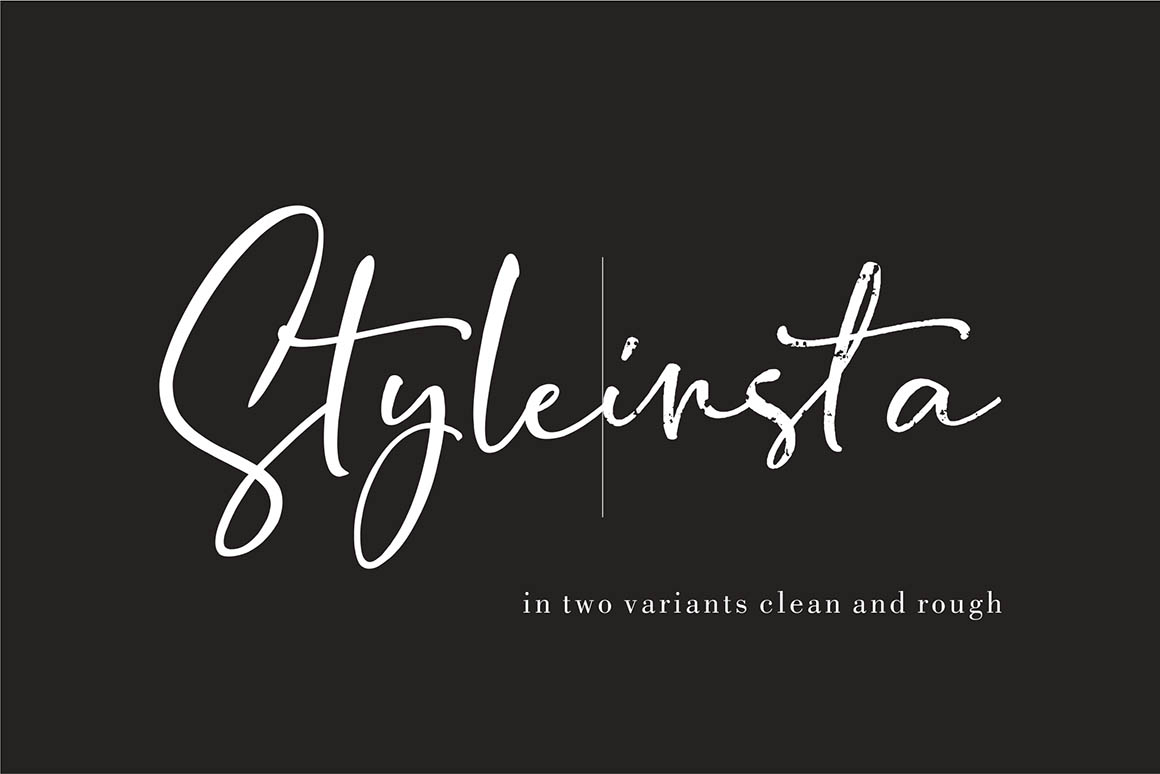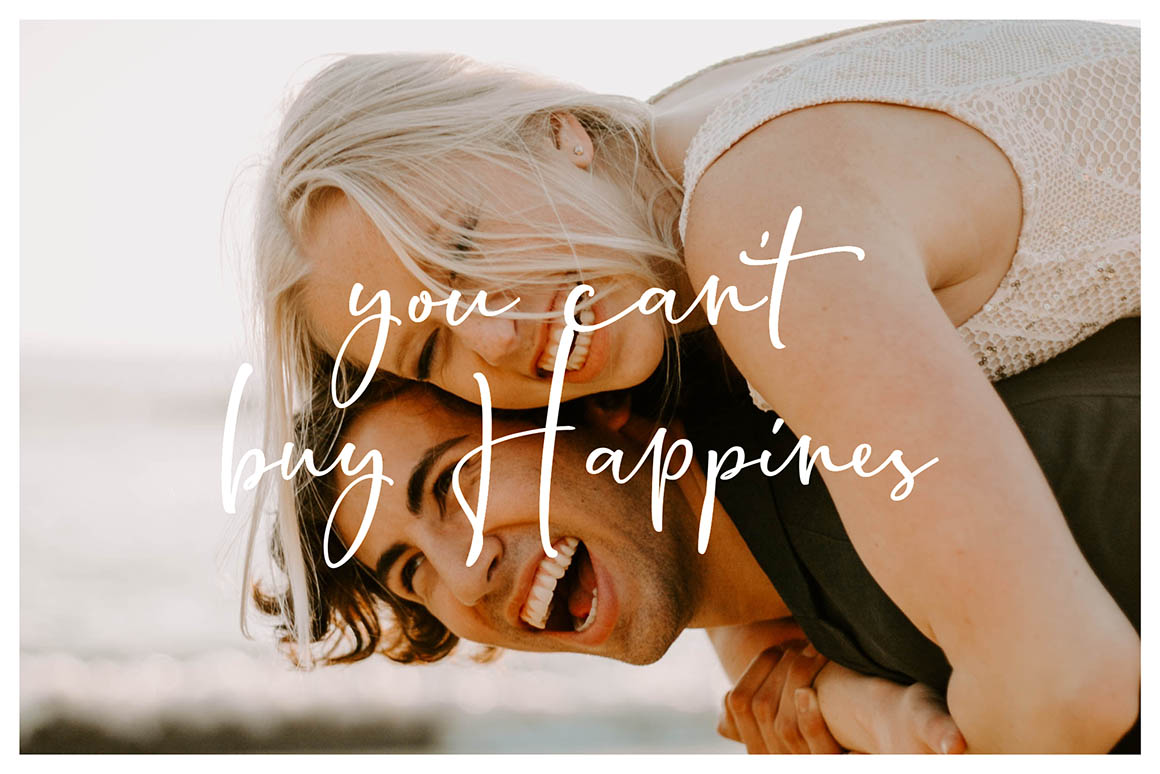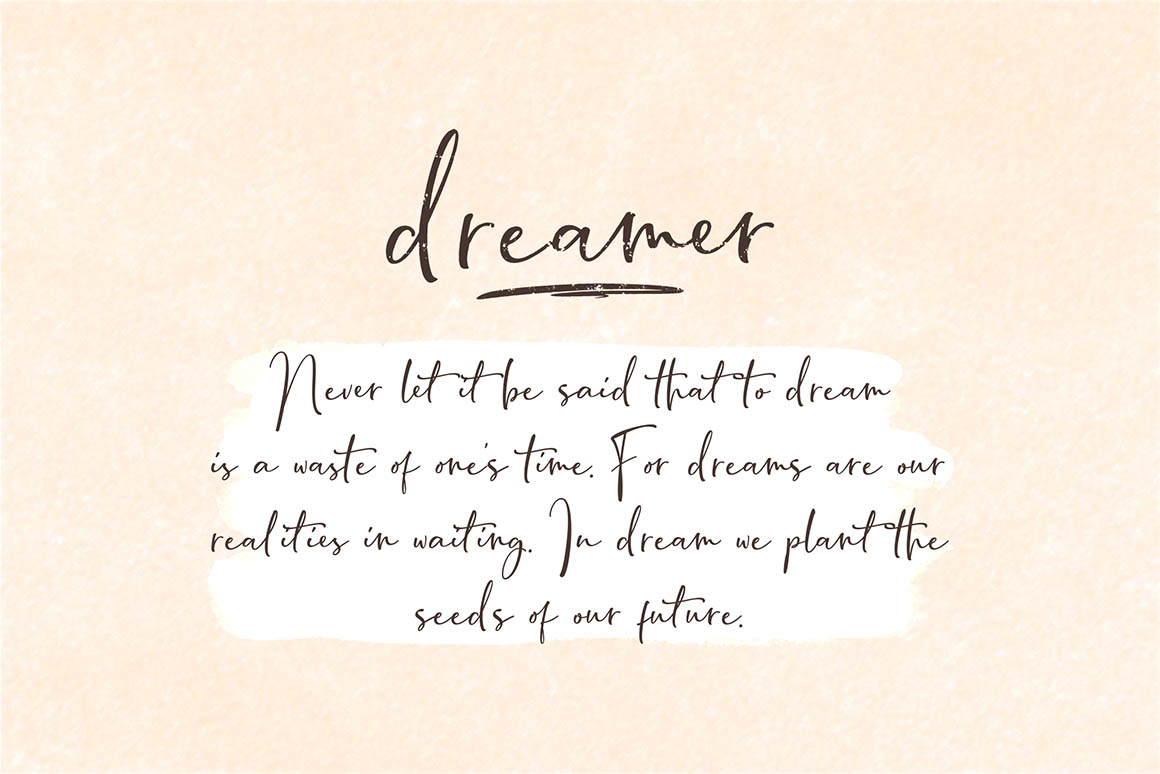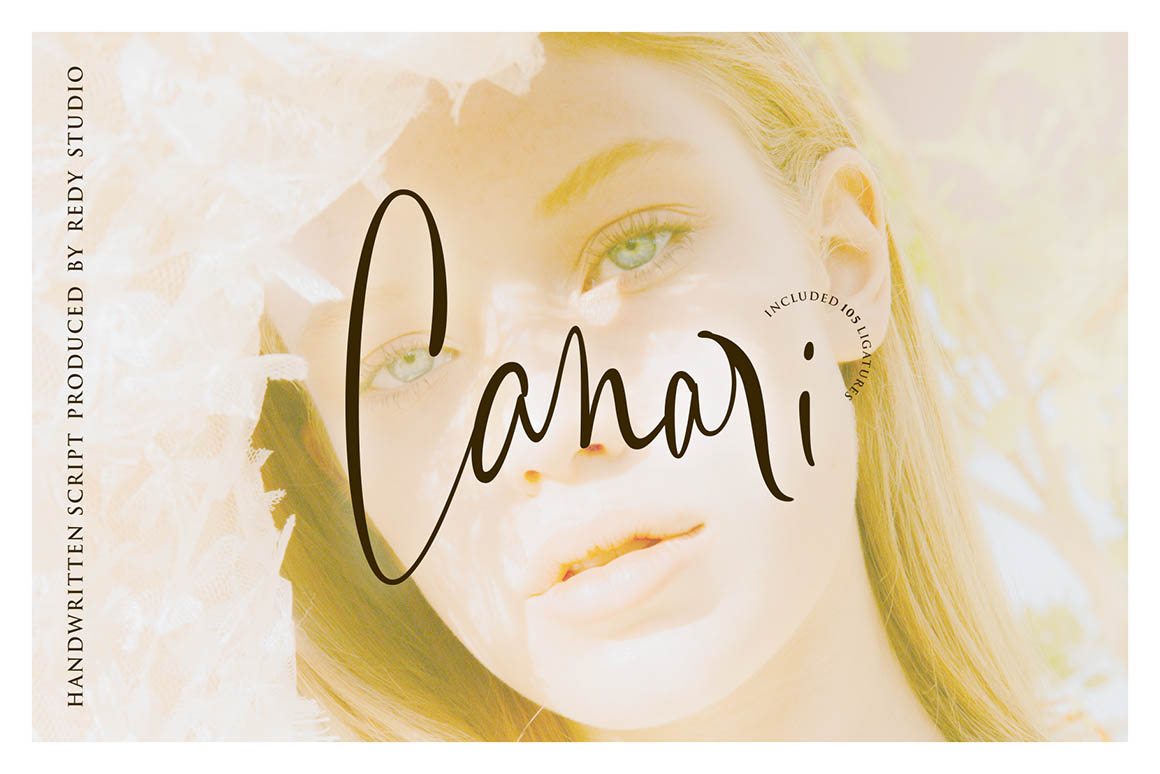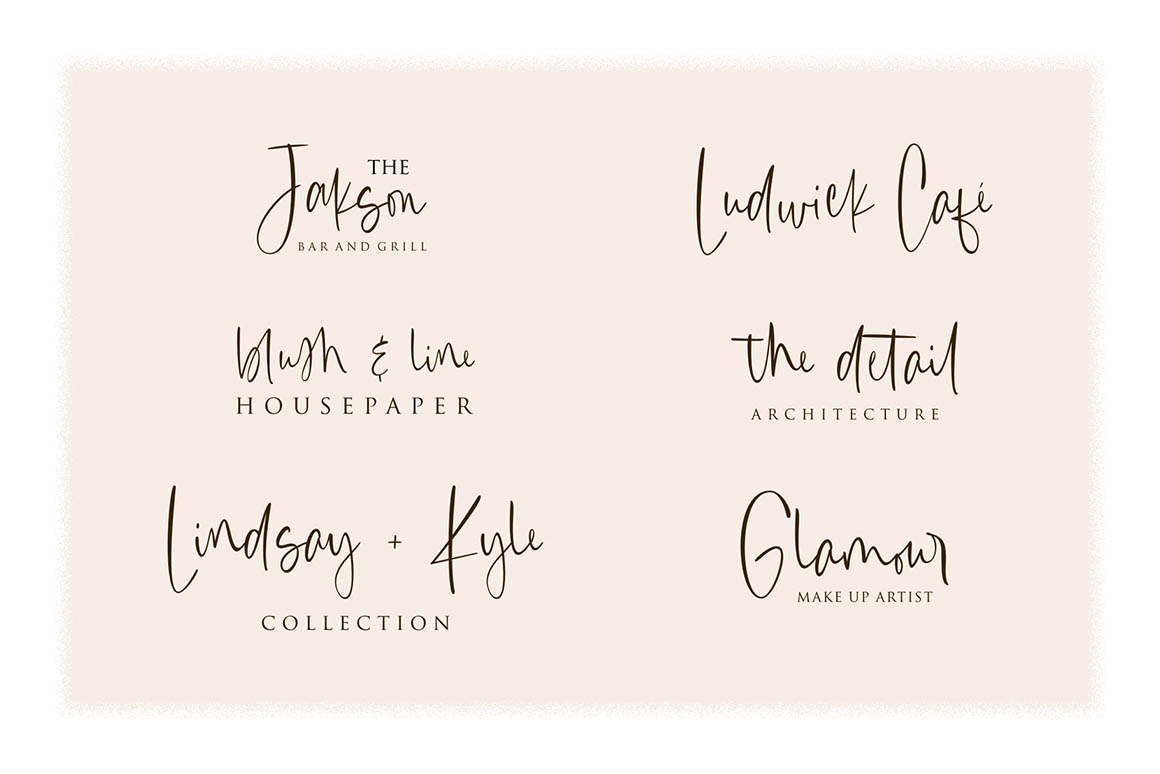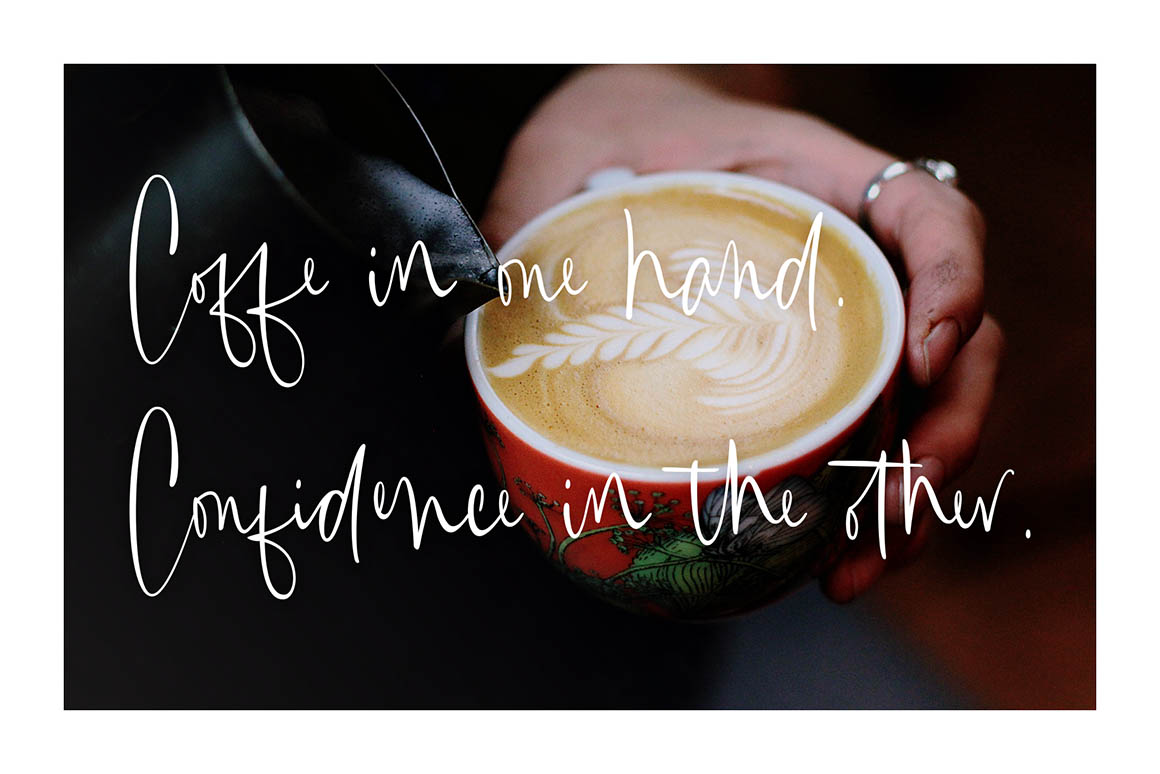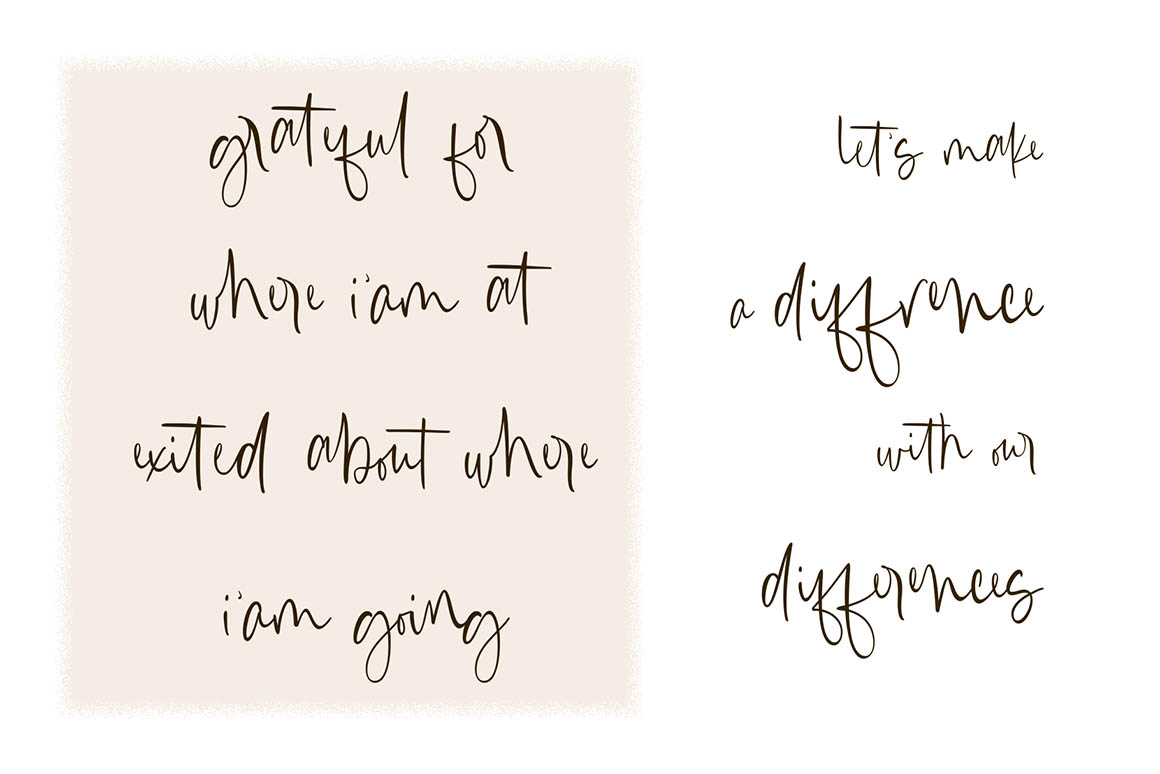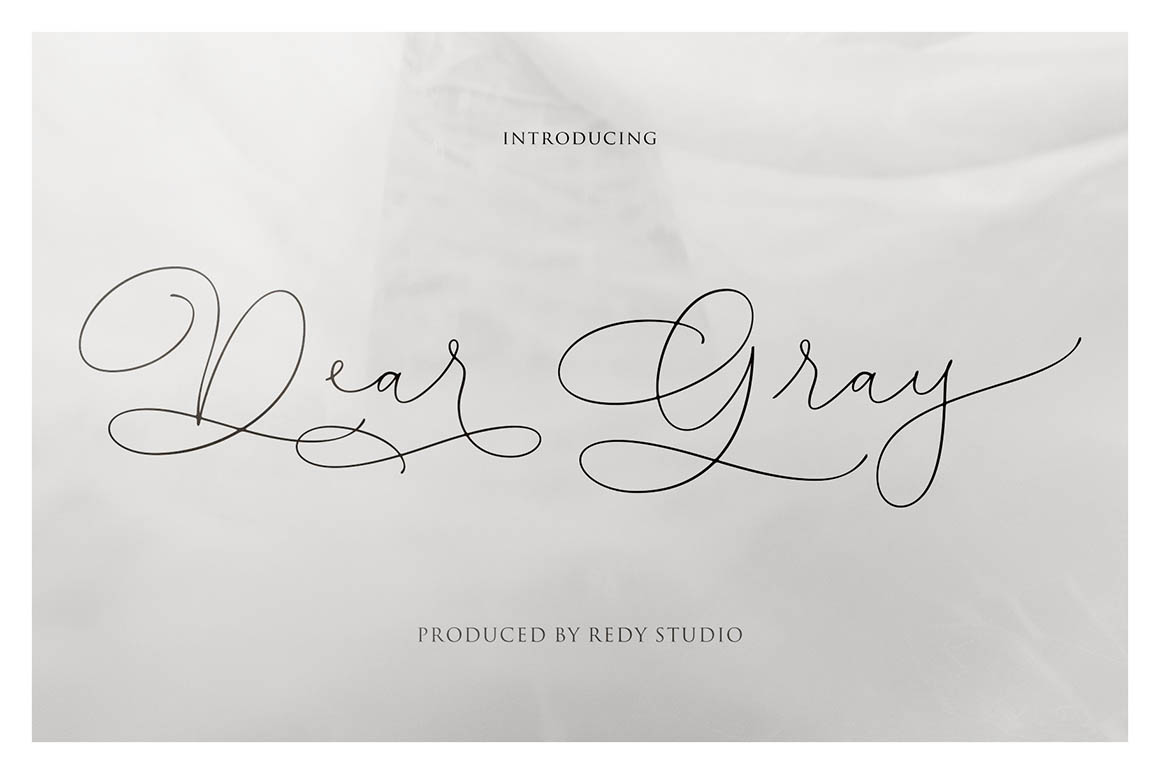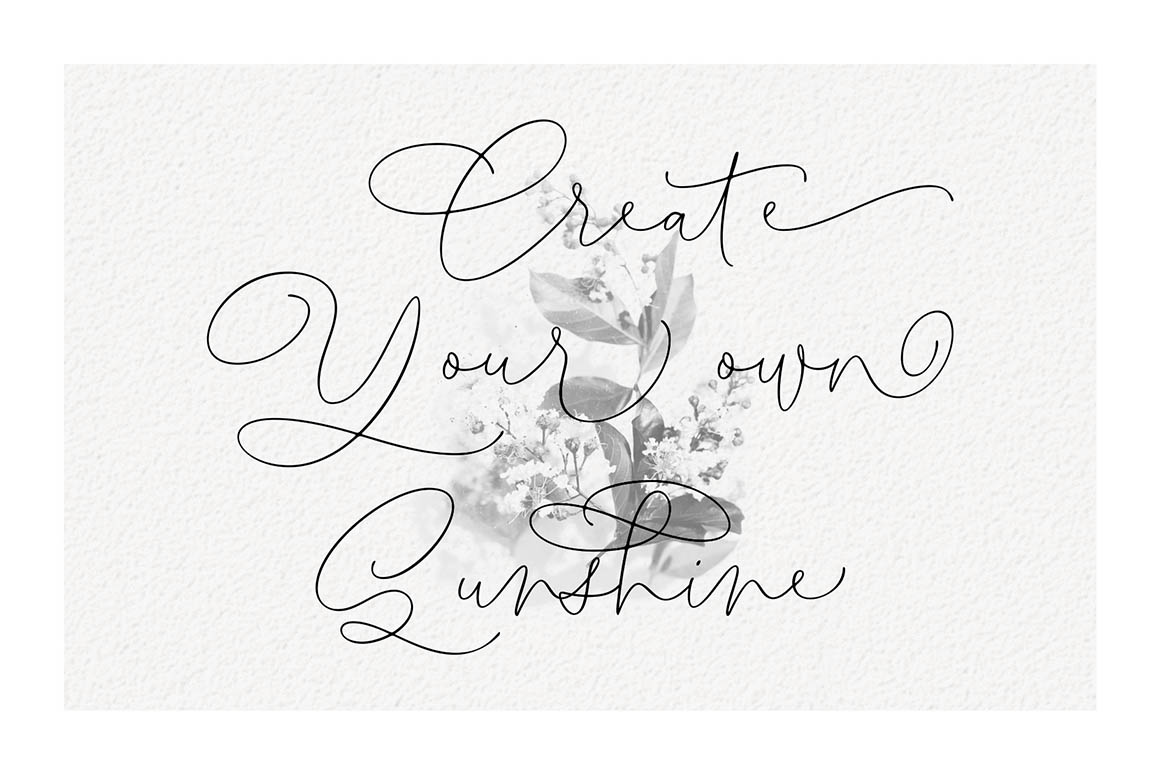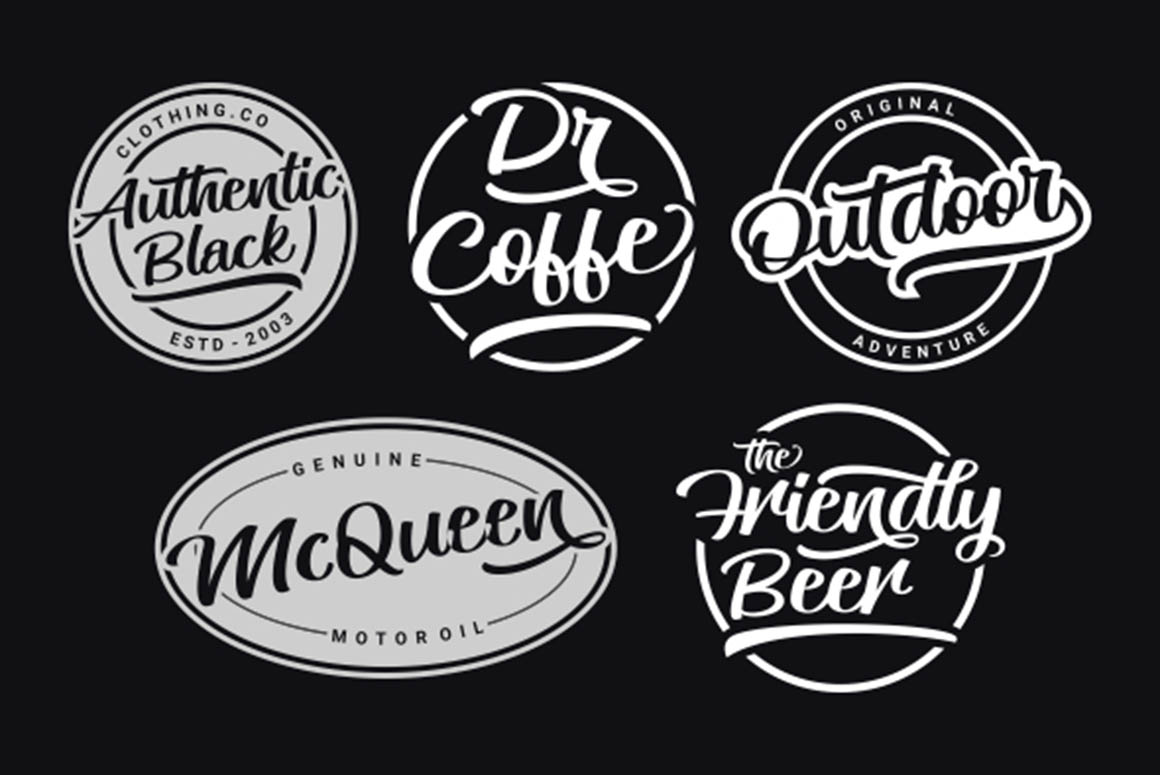
Need a creative & unique font in handwritten style for your new custom project or just something for your own typography artworks? Whatever the case, this amazing fonts bundle with 15 unique handwritten style font familes and 25 fonts is great source for all graphic designers.
If you need some unique and professional quality custom font for your artistic style logo or slogan, this unique typography bundle from RedyStudio is just for you! Great for your logos, cards, posters, mugs, t-shirts and many more. You can create true handwritten or signature texts without much effort.
- 15 amazing & unique handwritten font families with 25 fonts!
15 amazing & unique handwritten font families with 25 fonts!
01. 2 Variants | BondiSans from RedyStudio
Introduce BondiSans, is a bold messy, casual, carefree script with lovely and Comes with 98 ligatures for a totally unique hand-written feel. Bondisans consists of 2 variants, which are clean and rough, you can see more in the preview.
BondiSans Font is great for logo, printed quotes, badge, insignia, packaging, headline, greeting card, and wedding invitation, & etc.
BondiSans Features :
- Standard alphabet and punctuation
- 98 Ligatures (ab af ah ak al am an ap ar as at ay ant aff att bb bl cb ch ck cl ct dd eb ef eh ek el em en ep er es et ey est ent eff ett ff gh gt ib if ih ik il im in ip ir is it iy ist int iff itt ll ms ns oo ob of oh ok ol om on op or os ot oy ost ont off ott rr ss st tt ub uf uh uk ul um un up ur us ut uy ust unt uff utt wh)
- Multilingual Support (ÀÁÂÃÄÅCÇDÐEÈÉÊËIÌÍÎÏNÑÒÓÔÕÖÙÜÚÛÝŸỲŸß)
02. Canari | Signature Font from RedyStudio
Introducing Canari is a handwritten signature typeface coming with more than 105 stylistic ligatures. Its classy look makes it the perfect fit for signature logos, printed quotes, wedding invitation cards, social media headers, product packaging, etc and also comes with numbers, punctuation, ligatures and it also supports other languages 🙂
03. Dear Gray from RedyStudio
Introducing Dear Gray is a modern calligraphy font. Dear gray is beatiful for quote, logotype, website header, fashion design,wedding card design and any more. Dear Gray includes full set of gorgeous uppercase and lowercase letters, numerals, punctuation and ligatures and also, includes beautiful beginning and ending swashes, many alternates and it also supports other languages 🙂
04. Hafidz | Luxury Signature Font from RedyStudio
Hafidz is a handwritten, signature font family with alternates, ening swsh, natural ligatures and swash. Inky and expressive yet readable and functional, this typeface is designed to look perfect fit for signature logos.
Hafidz Includes :
- Uppercase,lowercase,numeral,punctuation & Symbol
- multilingual support
- Stylistic alternates
- ligatures (af,al,all,at,att,ch,ck,ct,el,ell,et,ett,ff,gg,gr,il,ill,it,itt,ll,lt,ob,ol,oll,om,on,or,orr,os,oss,ot,ott,ov,ow,rl,rr,rt,sh,sr,ss,st)
- swash
05. 3 FONT | Messy Nessy from RedyStudio
Introducing Messy Nessy, two signature script and one serif font it was created to help you designing makes gorgeous logos, badge, sign, packaging, headline, social media, etc. It is so beautiful and classy.
06. Minimalist Script from RedyStudio
Introduce Minimalist Script, align with its name, we keep make it simple with every font, we make it italic look but still beautifully perfect once you make it into a sentence. For every font, we provide 2 alternative choices, both for the uppercase and the lowercase Charter plus ending swashes on the small letter. Minimalist provides beautiful letter essence for any design project including wedding invitation, Quote, Branding, social media, photography overlays, etc.
Minimalist Features :
- Standard alphabet and punctuation
- Alternates and Ligatures
- ending swashes lowercase
- Multilingual Support (ÀÁÂÃÄÅCÇDÐEÈÉÊËIÌÍÎÏNÑÒÓÔÕÖÙÜÚÛÝŸỲŸß)
07. Plakias | Classy Script from RedyStudio
Introducing Plakias is a classy script typeface coming with alternate and than 50 stylistic ligatures. Its classy look makes it the perfect fit for signature logos, printed quotes, wedding invitation cards, social media headers, product packaging and it also supports other languages 🙂